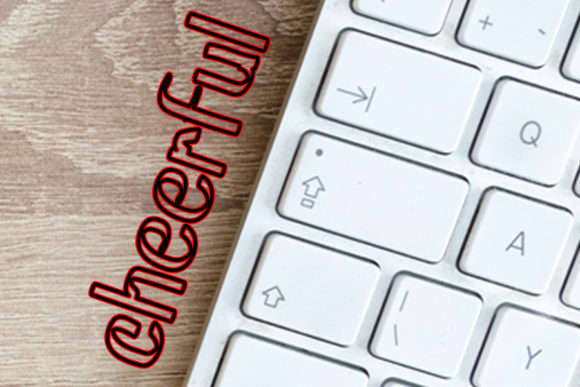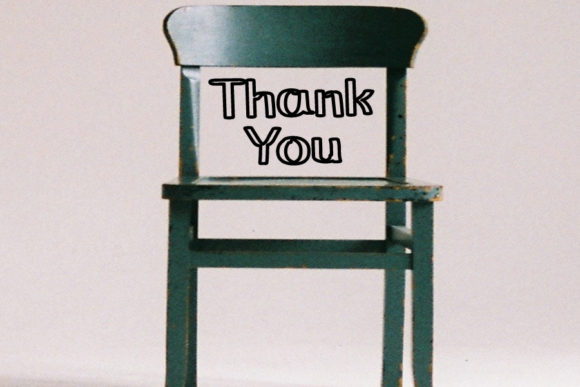
Introduction to Hello Friend Font
Hello Friend is an outlined handwritten font that will add something extra special to your next design.
Key Features of Hello Friend Font